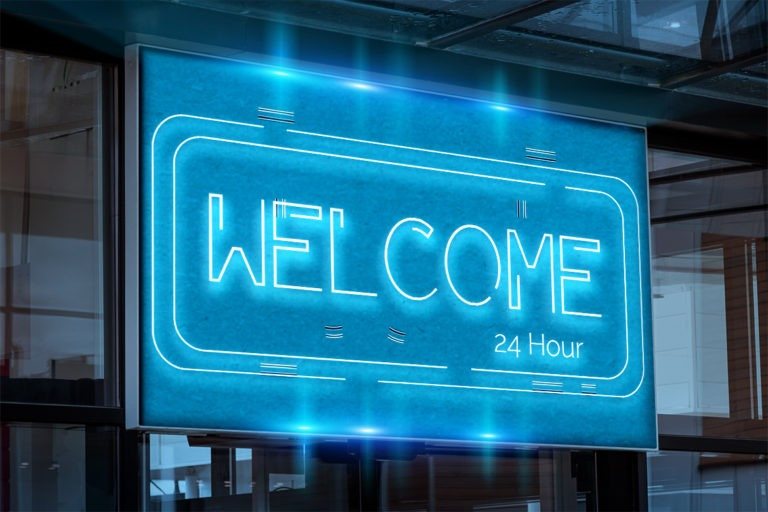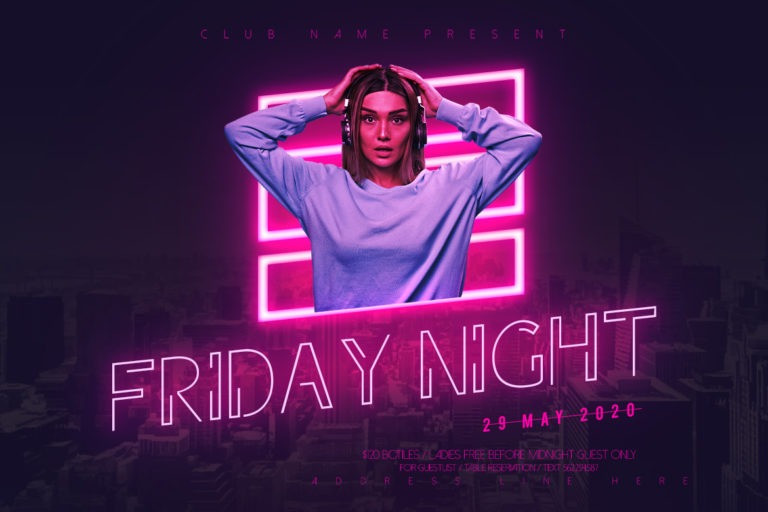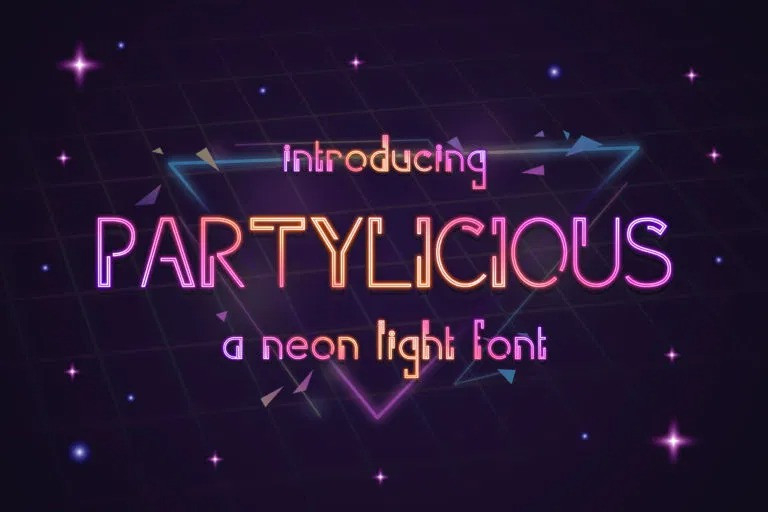
Parylicious Display Font
Partylicious is a modern Neon Light Font, Suitable for modern night theme. It’s great for your store, branding, quote and title for magazine, film, or product design.
| Designer Name: | Type Factory |
| Classification: | Display Fonts |